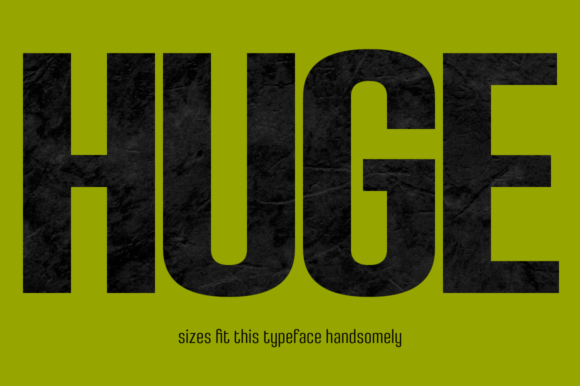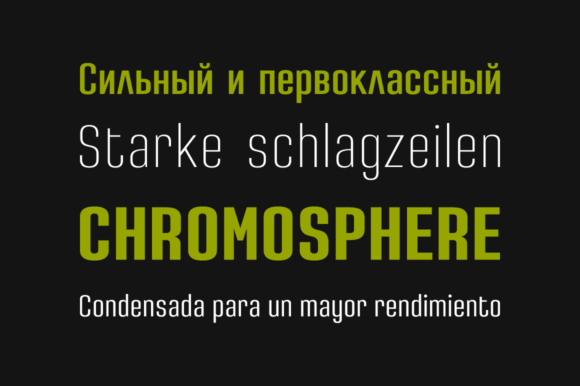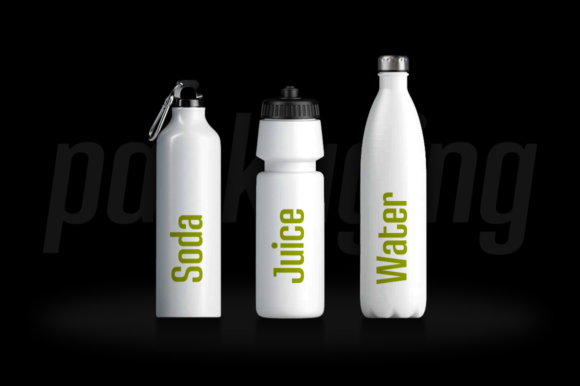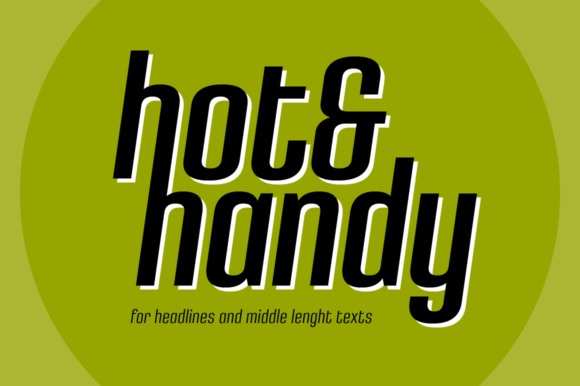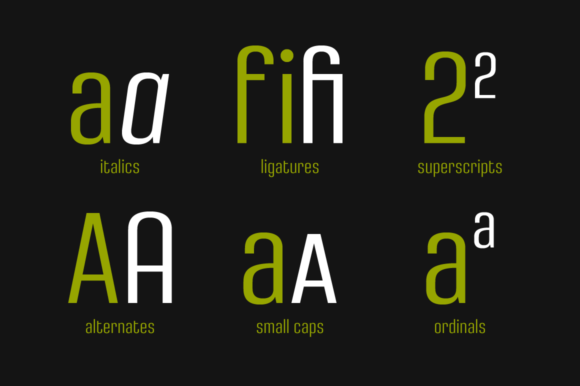
Discover the Densa Family Font: A Condensed Sans Serif Powerhouse
In the world of typography, finding the perfect font can be a daunting task, especially for designers and crafters looking for that unique edge. The Densa Family Font, designed by Pablo Balcells for Graviton Font Foundry in 2020, is a game-changer. This condensed sans serif typeface is not only visually striking but also highly versatile, making it an excellent addition to any design project.
What Makes Densa Stand Out?
The Densa font family boasts a condensed design, which makes it incredibly effective for space economizing. This feature is particularly useful for designers working on projects where space is limited, such as in packaging, posters, or digital banners. But what truly sets Densa apart are its unconventional display endings. These distinctive features add a touch of personality to any text, making it a standout choice for display usages like logos, headlines, and short text blocks.
Designed for Versatility
Densa has been carefully crafted to excel in a variety of applications. Its condensed sans serif design ensures clarity and readability, even at smaller sizes, while its display features make it perfect for grabbing attention. Whether you’re working on a logo, a poster, or a digital advertisement, Densa provides the flexibility to create visually appealing text that captures the essence of your message.
Comprehensive and Multilingual
One of the key strengths of the Densa font family is its comprehensive nature. It consists of 8 styles, ranging from regular to bold, allowing designers to play with hierarchy and emphasis in their work. Each style includes small caps, providing an additional layer of versatility for creating nuanced and sophisticated text. Moreover, Densa offers glyph coverage for several languages, making it a fantastic choice for international projects or brands with a global audience.
Perfect for Specific Uses
Densa has been specifically conceived for headlines and short length text blocks. Its design encourages creativity and can help brands stand out in a crowded marketplace. For designers and crafters looking for a font that can add a professional yet creative touch to their work, Densa is an excellent choice. Its unique blend of functionality and style ensures that it can be used across a wide range of projects, from editorial design to branding and advertising.
- Designer: Pablo Balcells
- Foundry: Graviton Font Foundry
- Release Year: 2020
- Number of Styles: 8
- Language Support: Several languages
- Glyphs: Includes small caps
The Densa Family Font is a powerful tool for designers and crafters looking to elevate their projects with a unique and versatile typeface. Its condensed sans serif design, combined with unconventional display endings, makes it perfect for a wide range of applications. With its comprehensive range of styles and multilingual support, Densa is poised to become a go-to font for creative professionals around the world. Whether you’re working on a branding project, a poster, or a digital campaign, Densa is sure to make your text stand out.
Incorporating Densa into your design workflow can open up new possibilities for creativity and expression. Its ability to economize space while still delivering impact makes it an invaluable asset for any designer. As the world of design continues to evolve, having a font like Densa in your arsenal can give you the edge you need to create compelling, effective, and beautiful work.